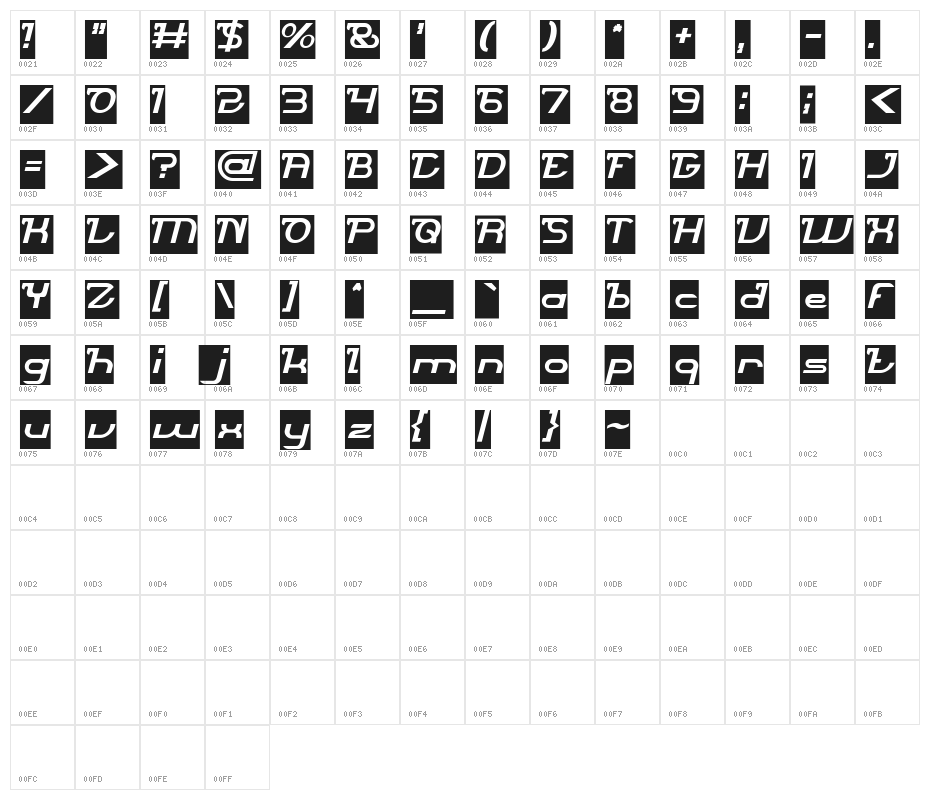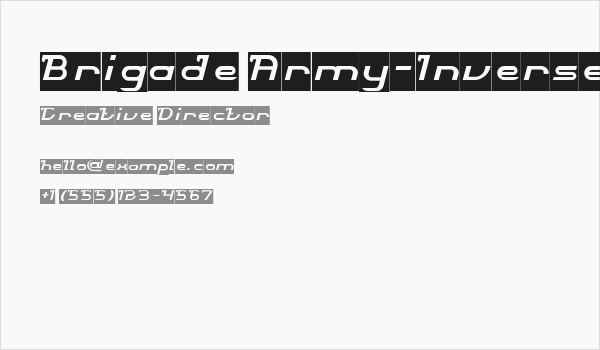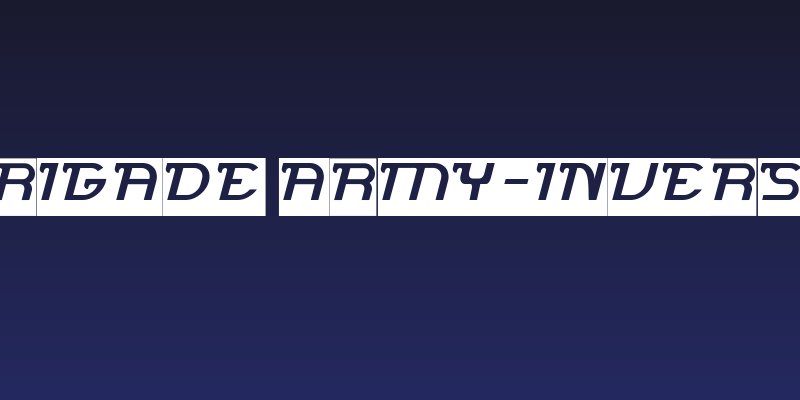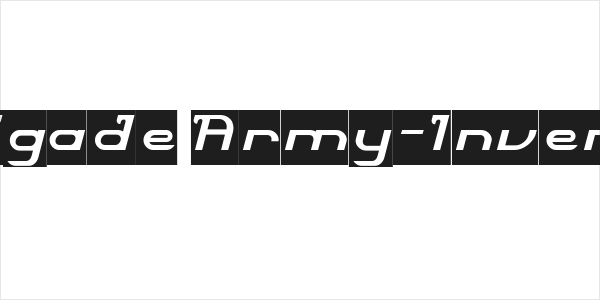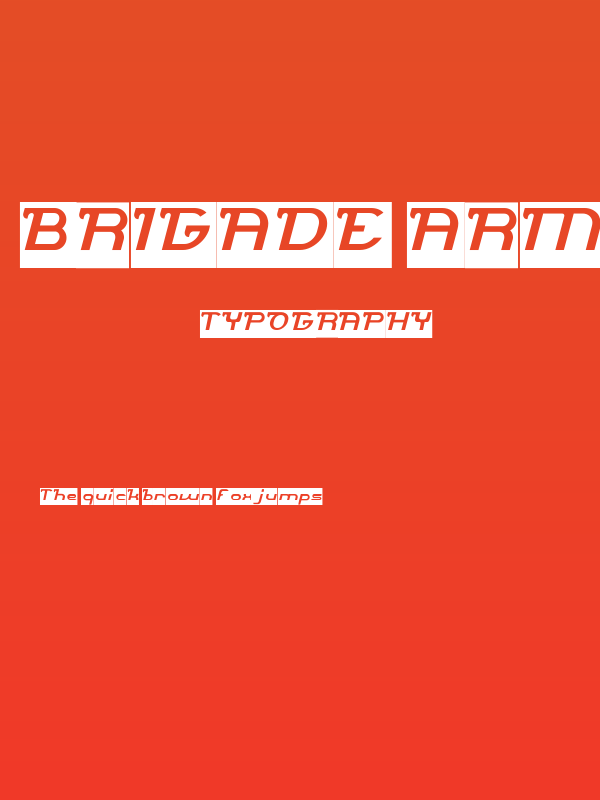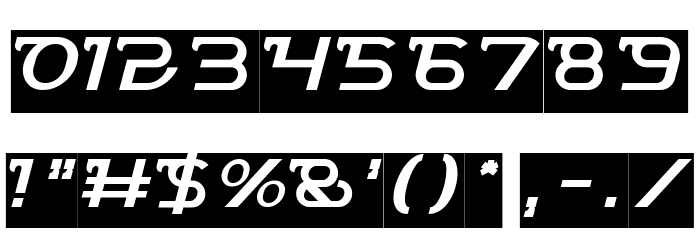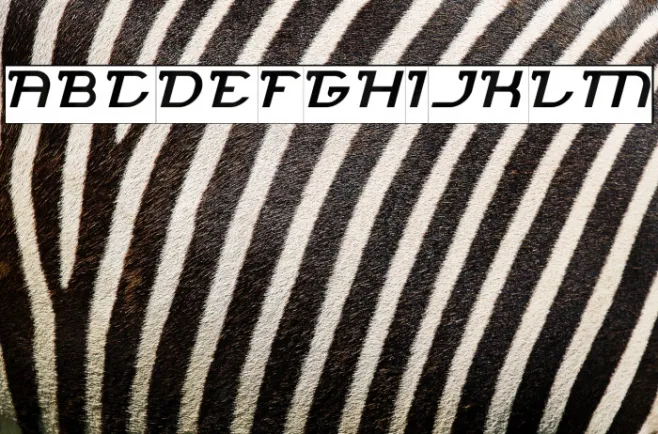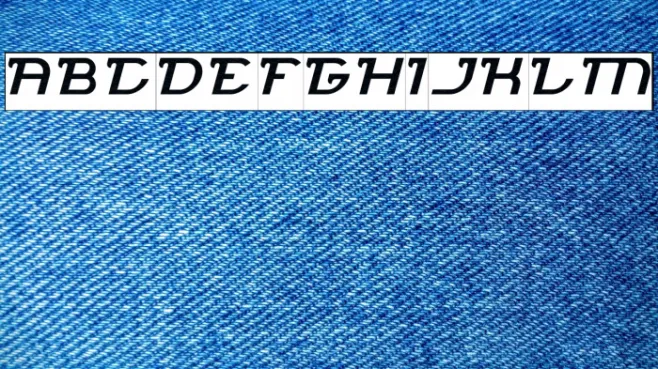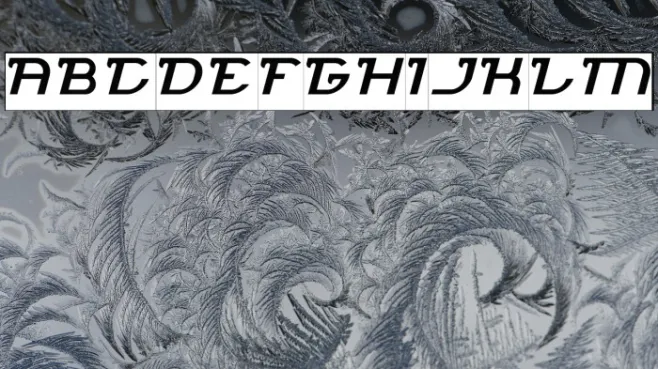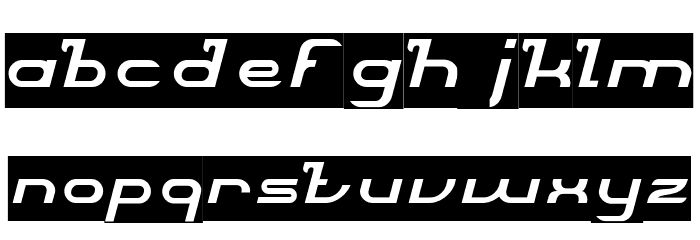
Brigade Army-Inverse Font
Brigade Army-Inverse Description
This font features a bold and dynamic style with a strong presence. The characters are slightly italicized, adding a sense of motion and energy. The uppercase letters are particularly striking, with sharp angles and a futuristic feel. The lowercase letters maintain the same energetic style, with unique curves and edges that make them stand out. The numbers are consistent with the overall design, offering a cohesive look across all characters. Special characters are included, maintaining the same bold and dynamic aesthetic. This font is perfect for projects that require a modern and impactful look.
| Proposed Projects | Ideal for branding, sports team logos, action movie posters, and video game titles. |